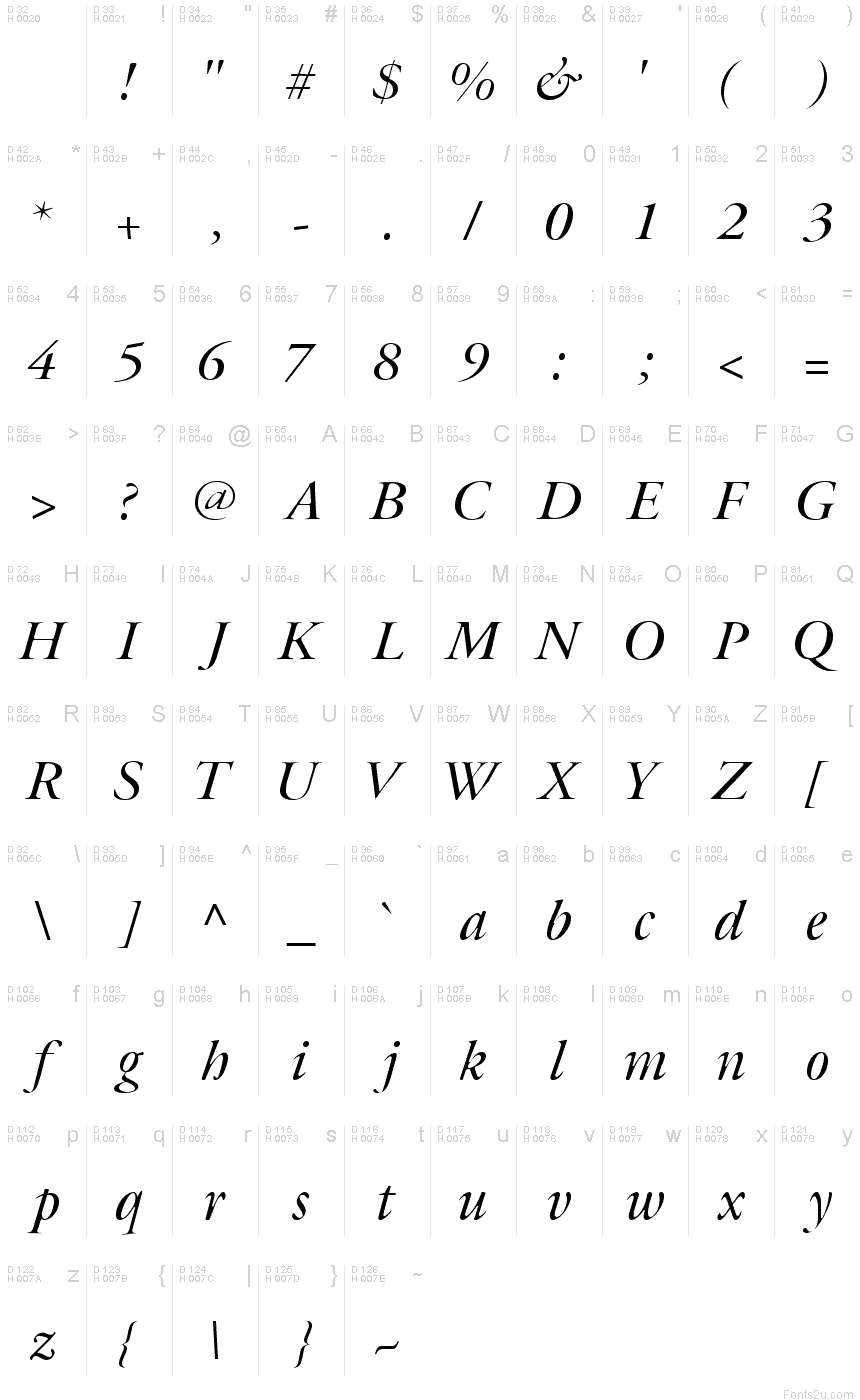
Bulgarian Garamond Italic by Ilya Talev is a free italic serif font with refined classical proportions. Its sharply modulated strokes move from fine hairlines to broad curves, and the steep slant keeps the lettering lively. Long entry and finishing strokes lend letters a formal sweep.
Book covers are its strongest setting, especially for literary fiction, poetry, and historical publishing. The elegant movement also suits museum posters and cultured event programs. In editorial design, the lettering can become part of a decorative title treatment rather than serving as neutral text.